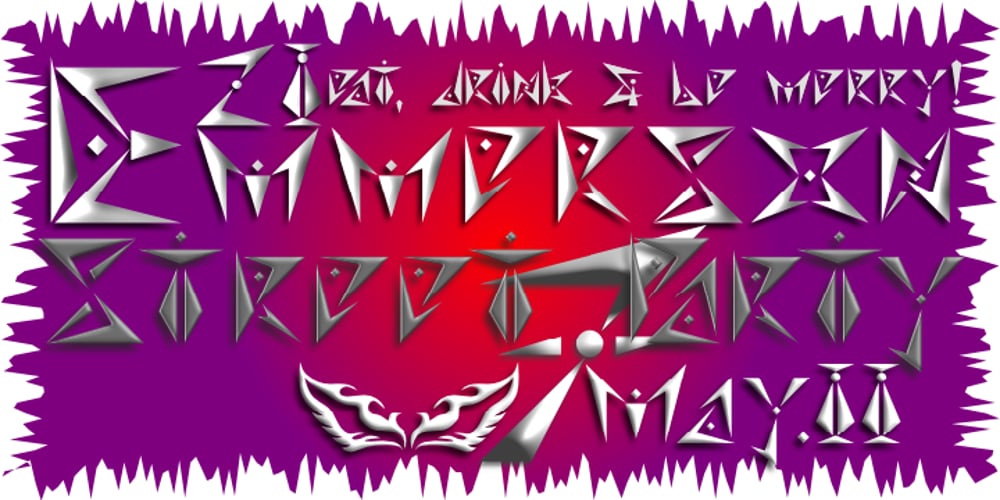
21 Emmerson Font Family was designed by Denise Koehler and published by Deniart Systems. 21 Emmerson contains 1 styles and family package options. A bit grungy, a bit stern, 21 Emmerson is a tribute to my birthplace and was designed with punky headline posters in mind. The simple lines of this font are angular and sharp – great for party posters, invitations, labels, etc.